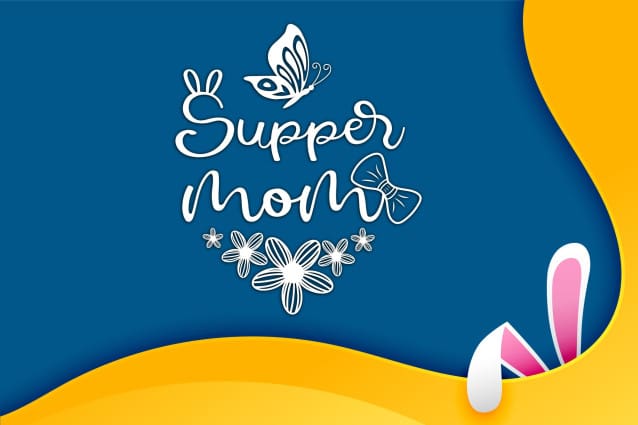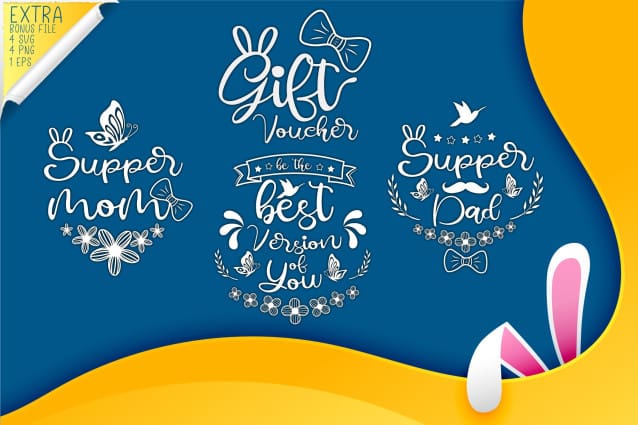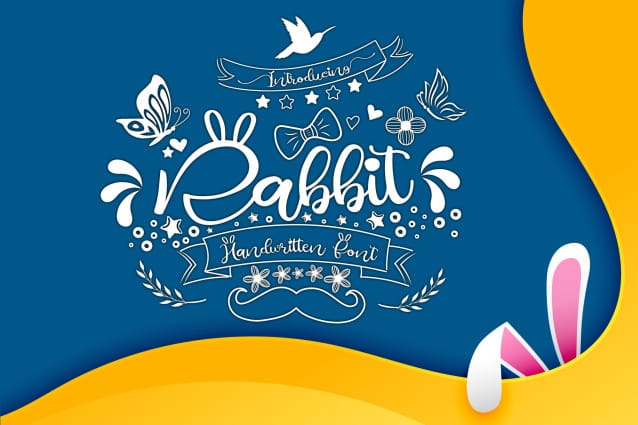
NC Rabbit Font
NC Rabbit Font, is a lovely and timeless handwritten font. It is the best choice for creating eye catching logos, branding and quotes. Every letter has a unique and beautiful touch, which will make your design come alive! This font is PUA encoded which means you can access all of the glyphs and swashes with ease!